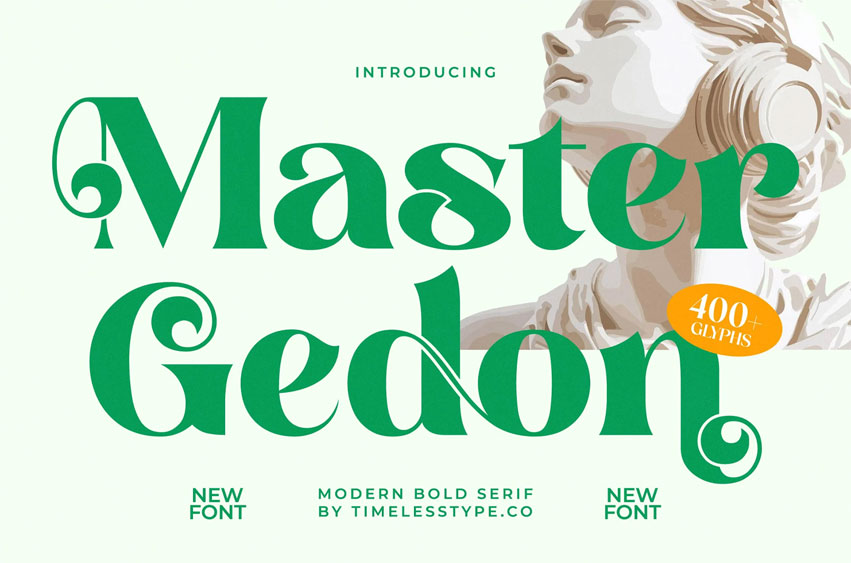
Master Gedon Font
Master Gedon Font is a modern bold serif crafted with sculptural curves, refined contrast, and expressive ornamental terminals—designed to command attention with sophistication and artistic flair.
Featuring 400+ thoughtfully shaped glyphs, this font blends classical serif structure with contemporary elegance, making it ideal for luxury branding, editorial headlines, packaging, high-end posters, logo design, and statement typography. Its smooth, confident forms and stylistic alternates give designers the flexibility to build striking visual identities while maintaining a polished, premium look across every application.